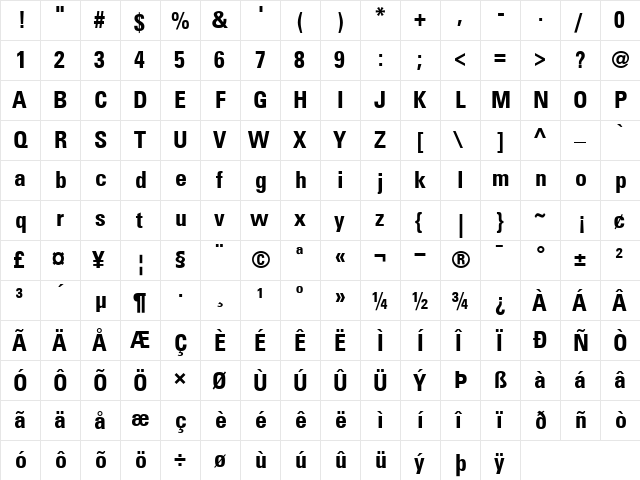
Univers67-Condensed Bold
Design Context for Univers67-Condensed Typeface
Univers67-Condensed is a composed and adaptable typeface that performs quietly and consistently across a wide range of design contexts. The heavy weight commands attention and anchors typographic hierarchies. Its narrow stance lets it pack a punch even in space-constrained designs.